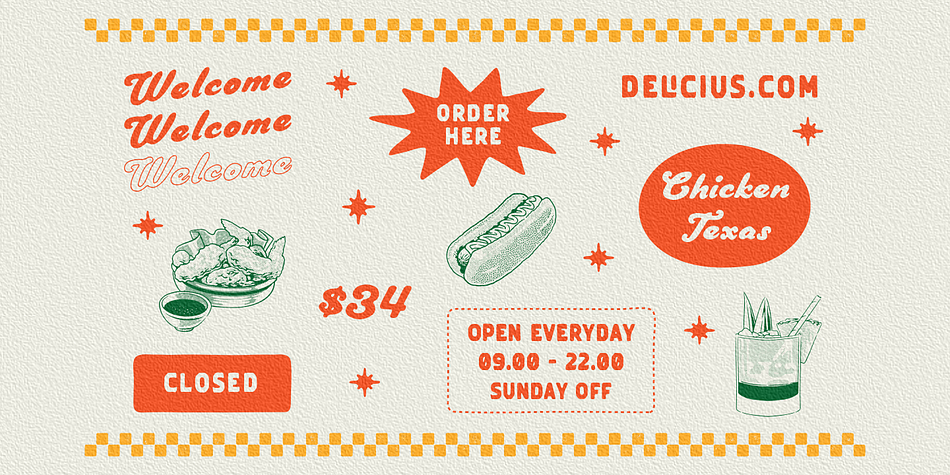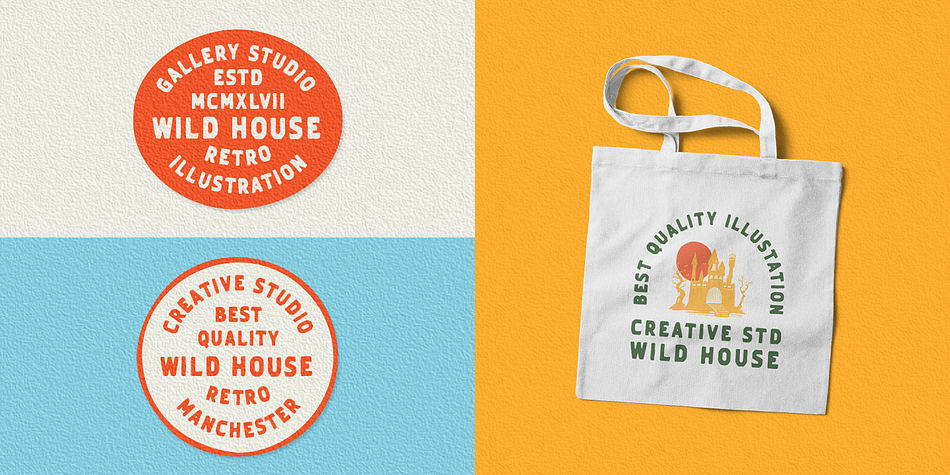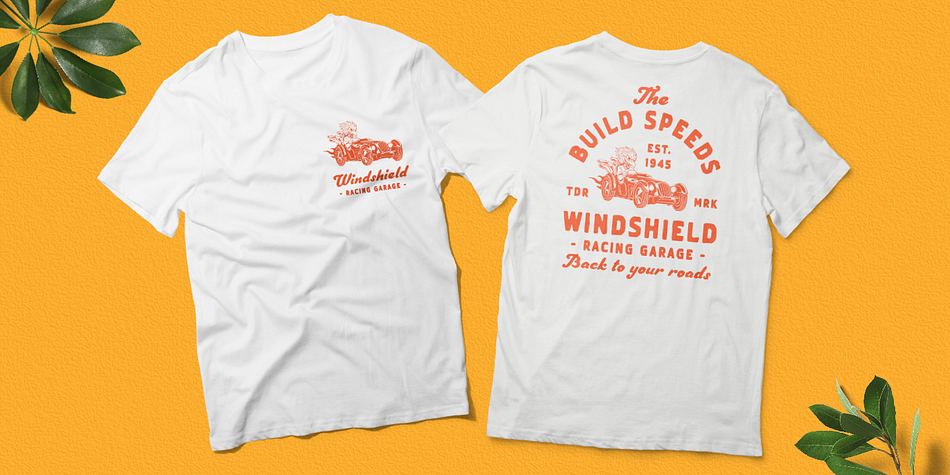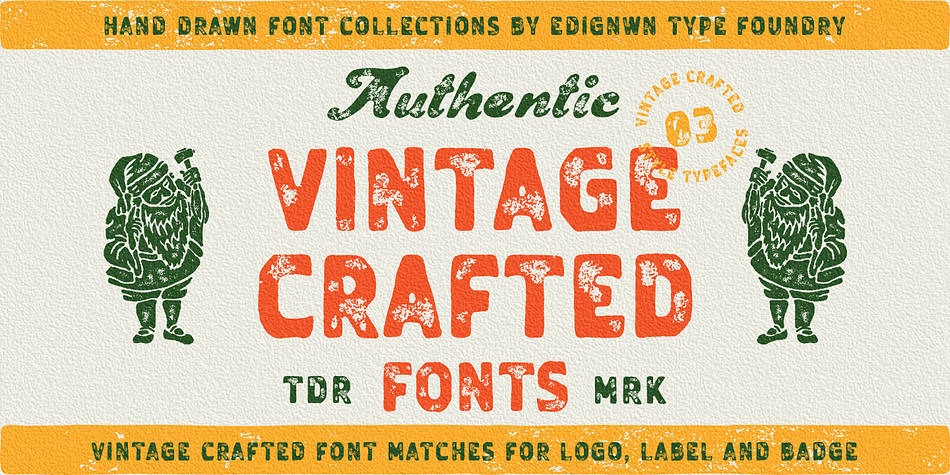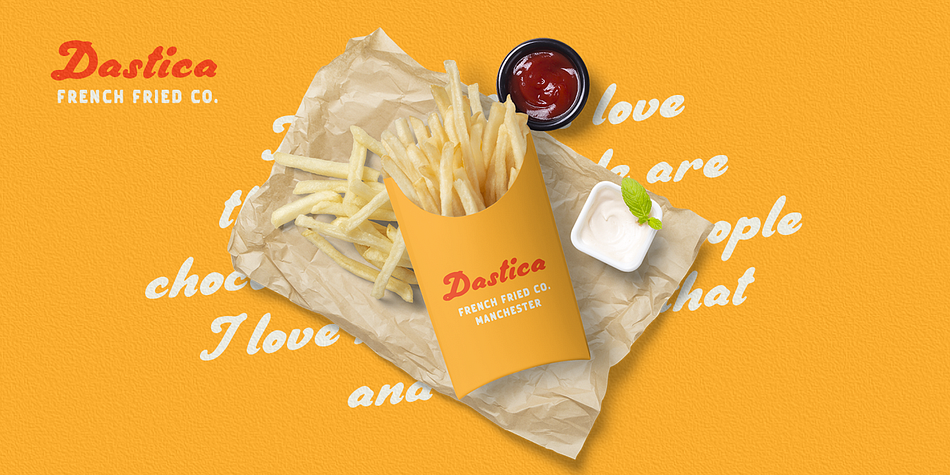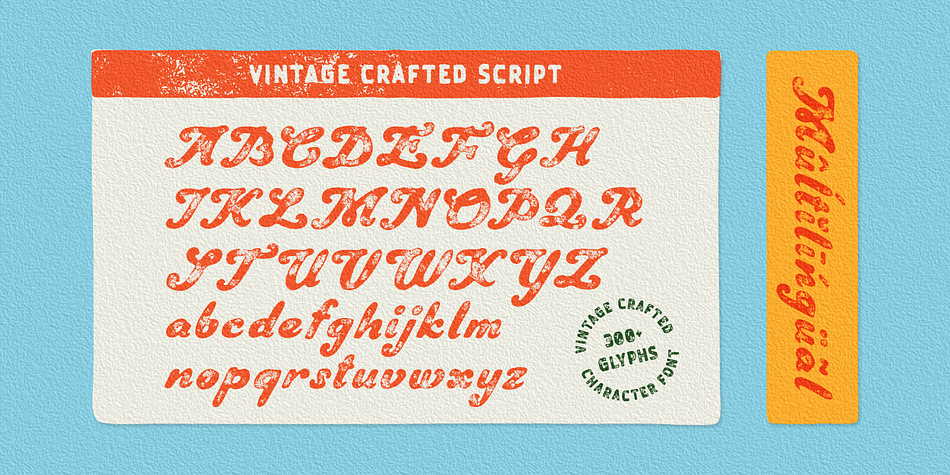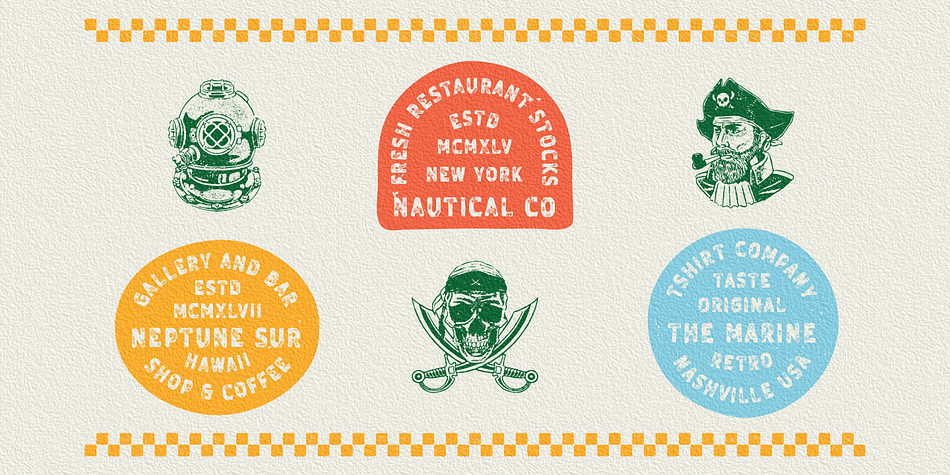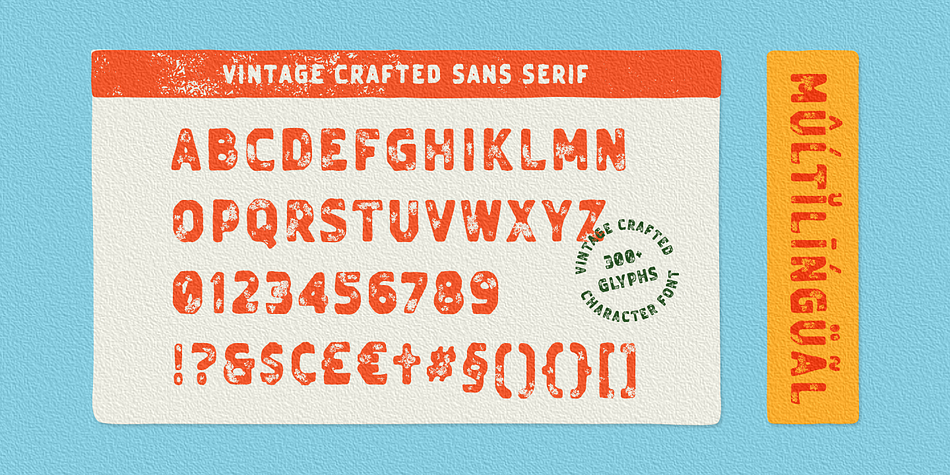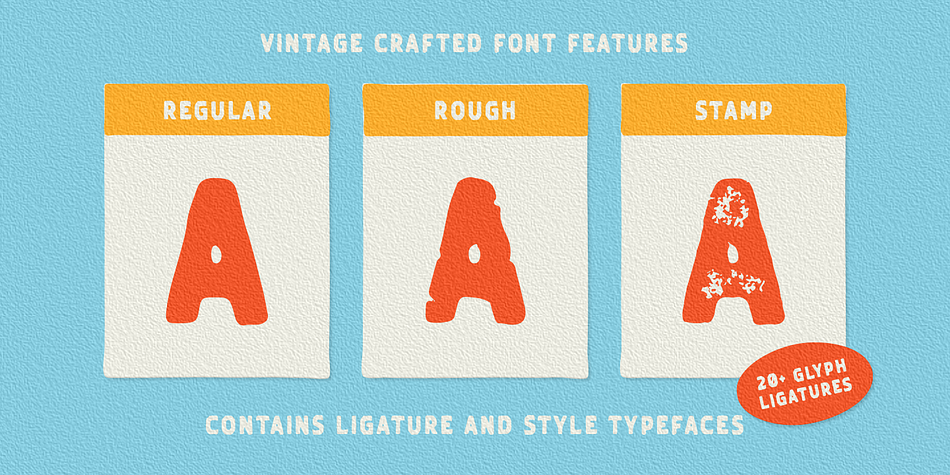
VINTAGE CRAFTED
Designed by Edi Gunawan, Vintage Crafted is a brush script and display sans font family. This typeface has six styles and was published by Edignwn Type.
The Vintage Crafted Font is hand drawn typeface with retro themes. This font collections contain script and sans serif font. Every font comes with 3 style typefaces (regular, rough and stamp). This sans serif font includes some ligatures. The Vintage Crafted matches apply in some designs such as the logo, poster, label, badge, packaging, t-shirt, branding, quotes and more custom design.
Vintage Crafted includes :
- 6 fonts (script and sans serif)
- 3 style typefaces (regular, rough and stamp)
- Uppercase, lowercase, numeral, symbol and punctuation in script font
- All-caps, numeral, symbol, punctuation and ligature in sans serif font